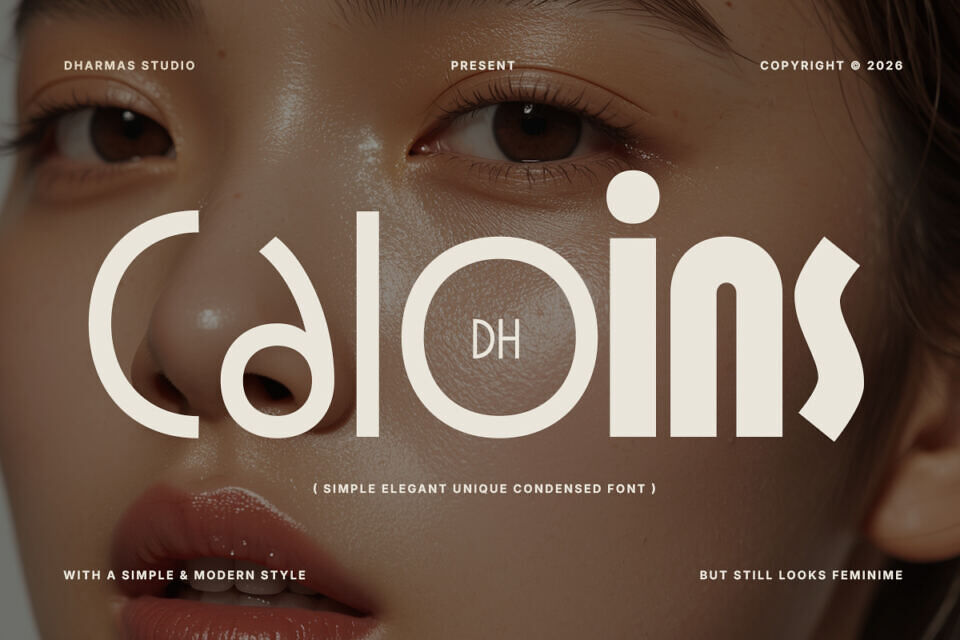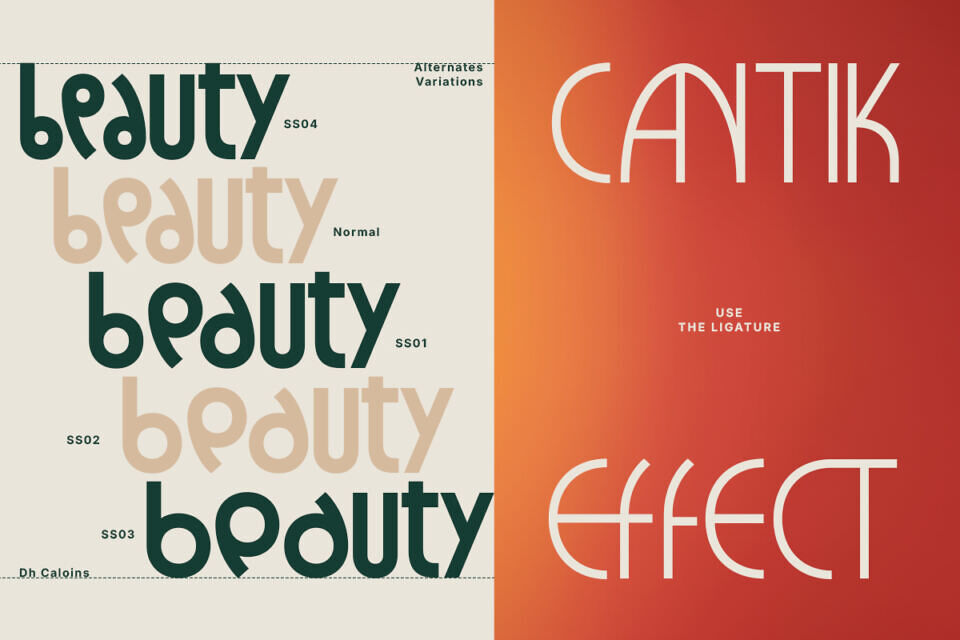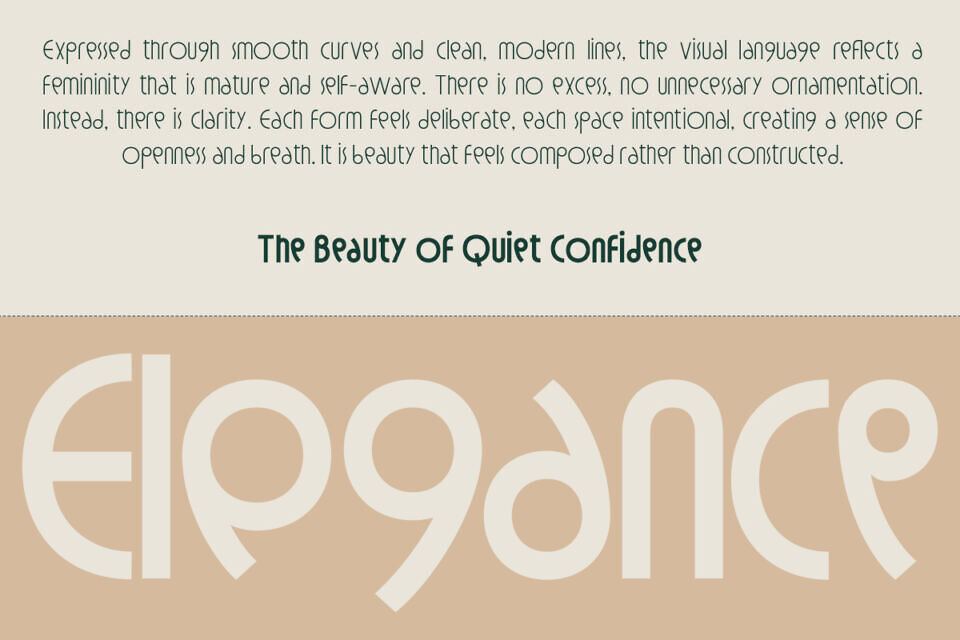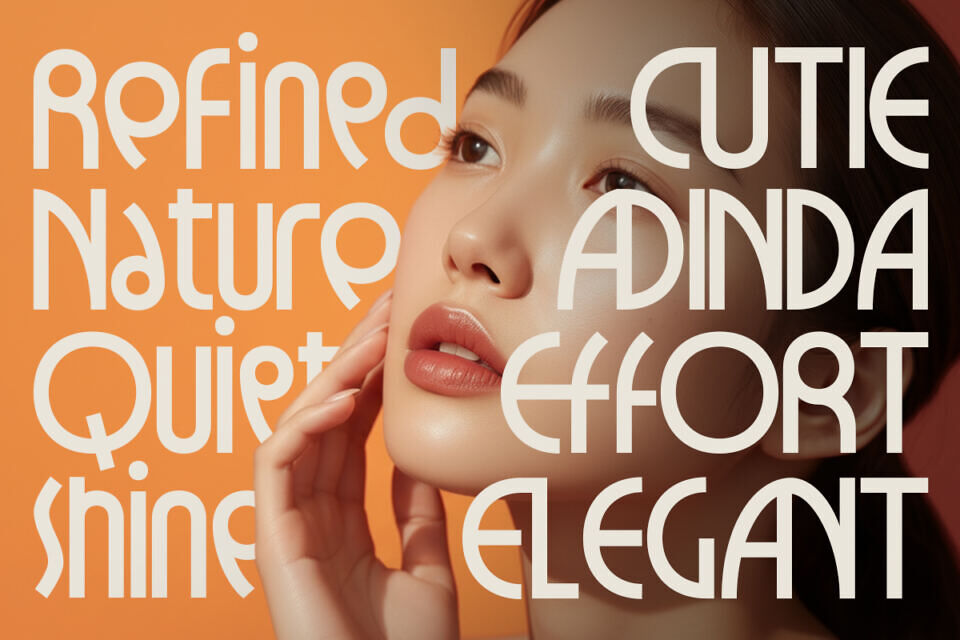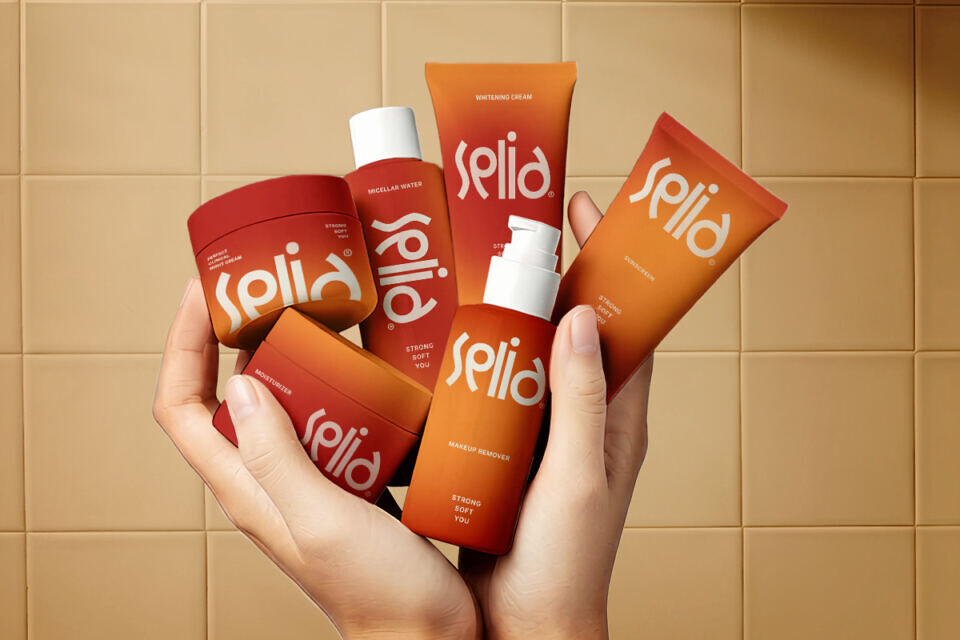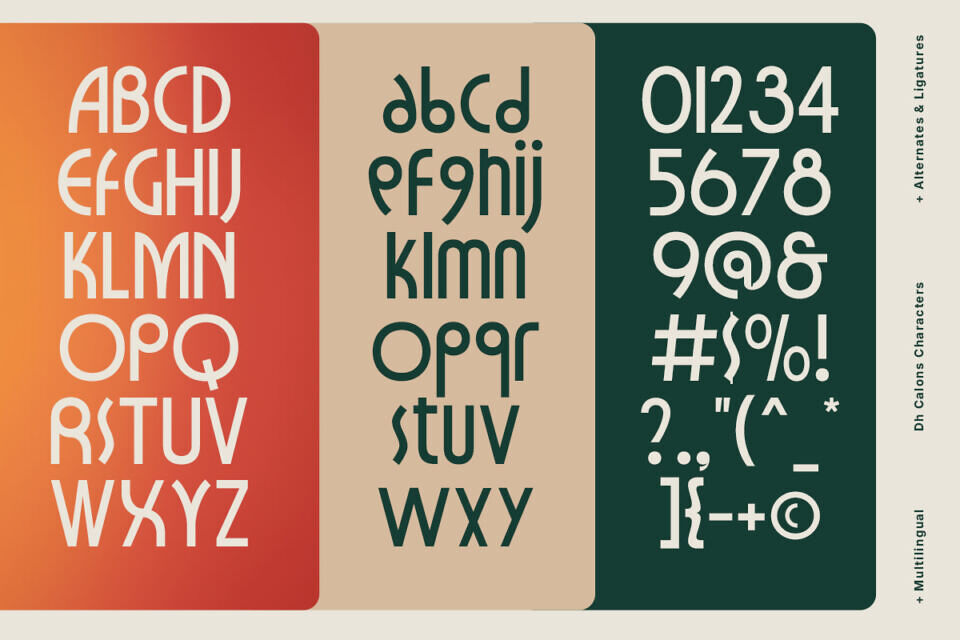
Dh Caloins Font
Dh Caloins is an elegant modern typeface family designed to bring a refined, graceful, and sophisticated touch to your typography. With its smooth curves and distinctive letterforms, this font creates a stylish and expressive look that works beautifully for beauty brands, fashion designs, editorial layouts, and premium branding projects.